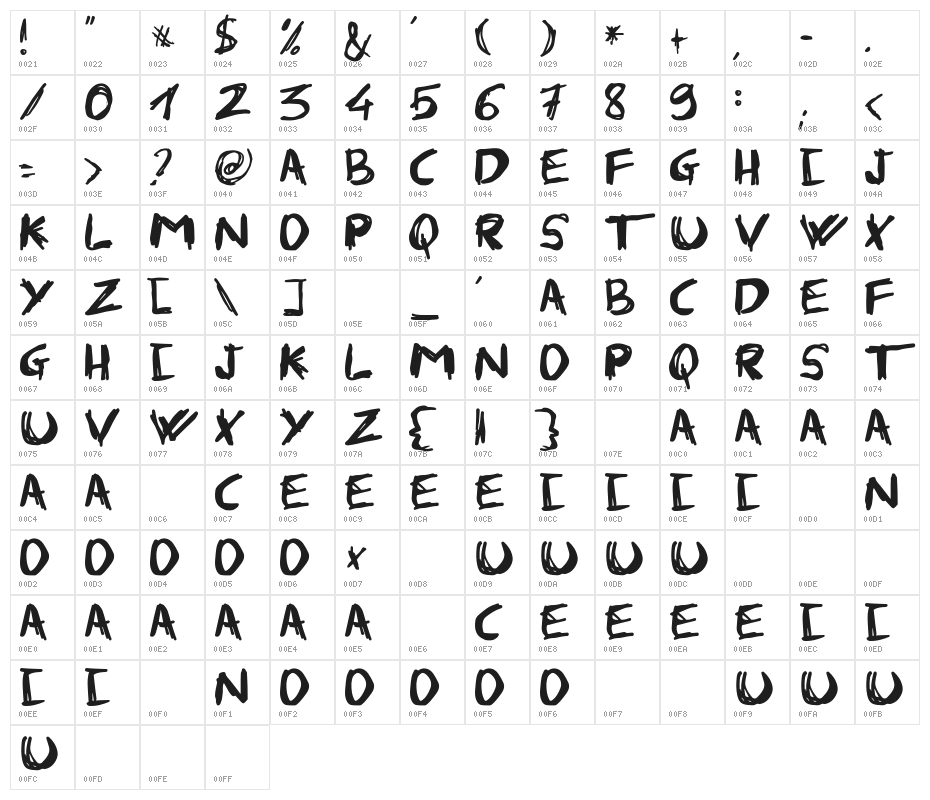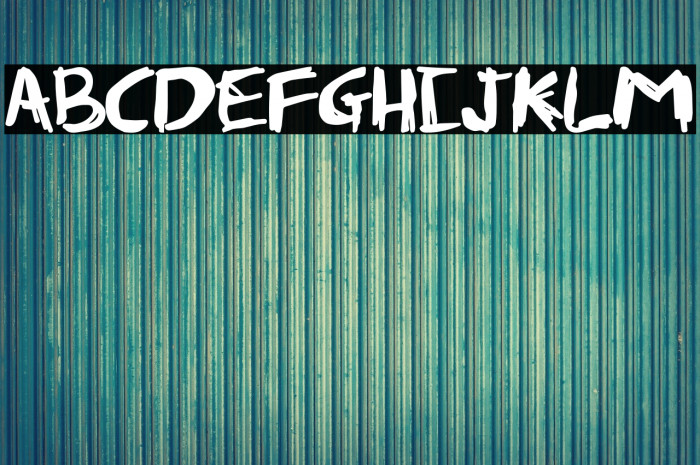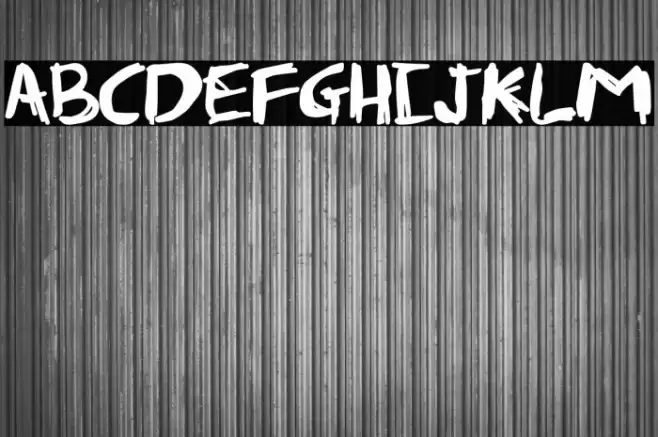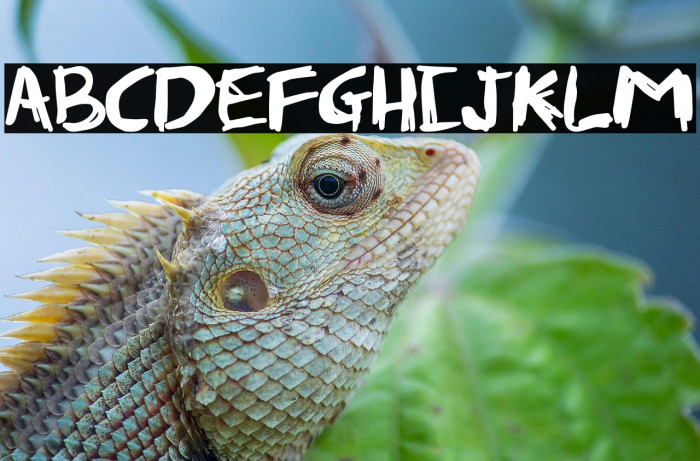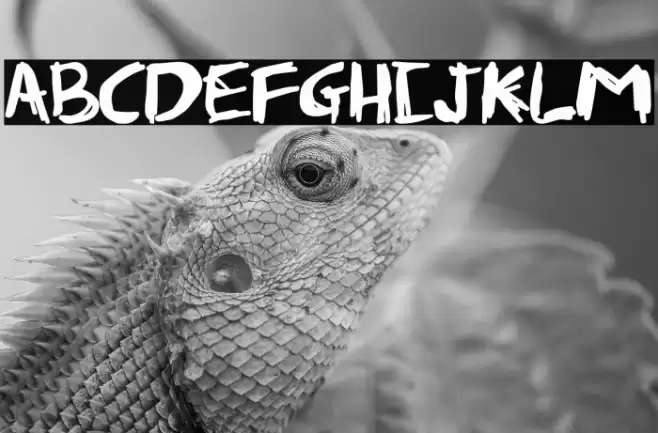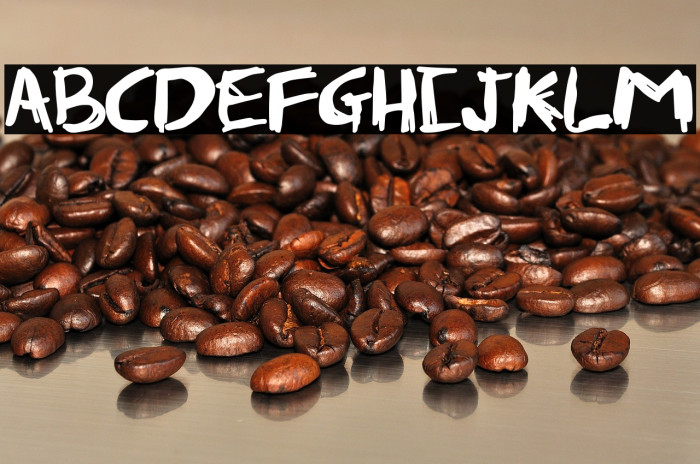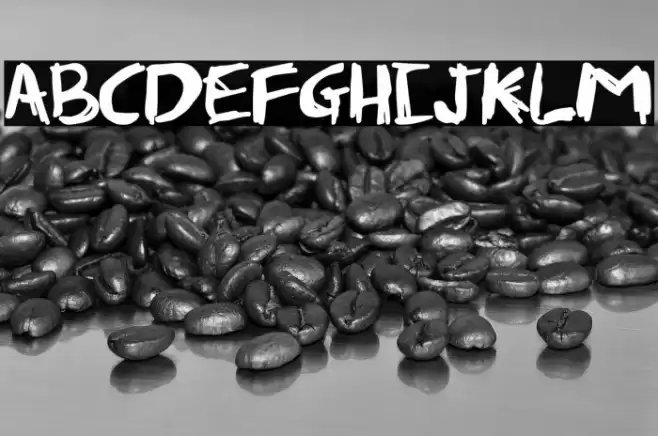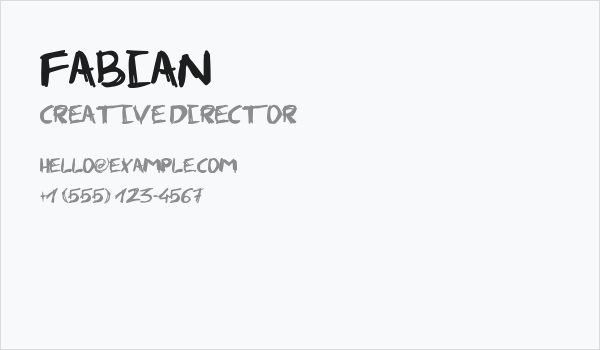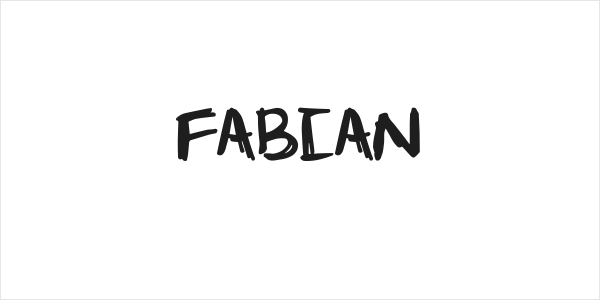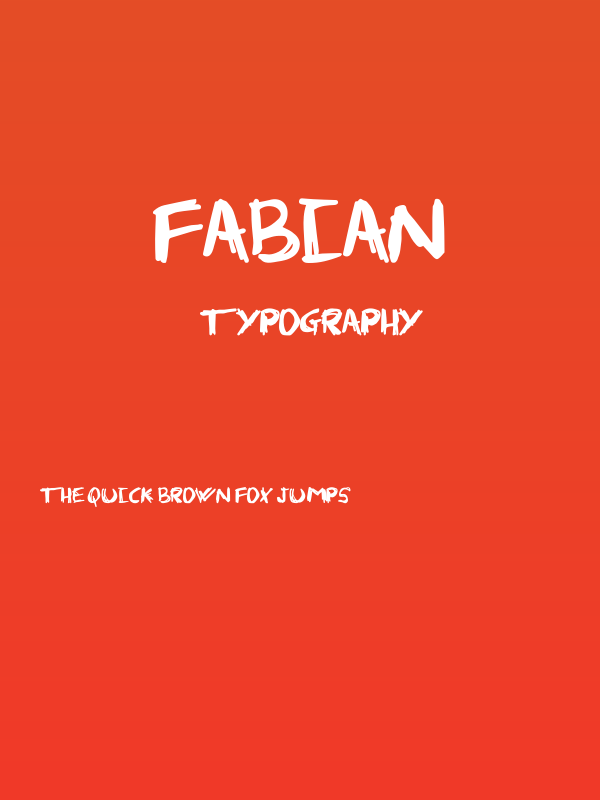
Fabian Font
Fabian Description
This font features a bold and dynamic handwritten style, characterized by its energetic and expressive strokes. The letters are irregular and slightly slanted, giving a sense of movement and spontaneity. The uppercase and lowercase letters maintain a consistent style, with a playful and artistic flair. The numbers and special characters follow the same energetic theme, making the font suitable for creative and informal designs. The overall appearance is bold and impactful, making it ideal for attention-grabbing headlines or artistic projects.